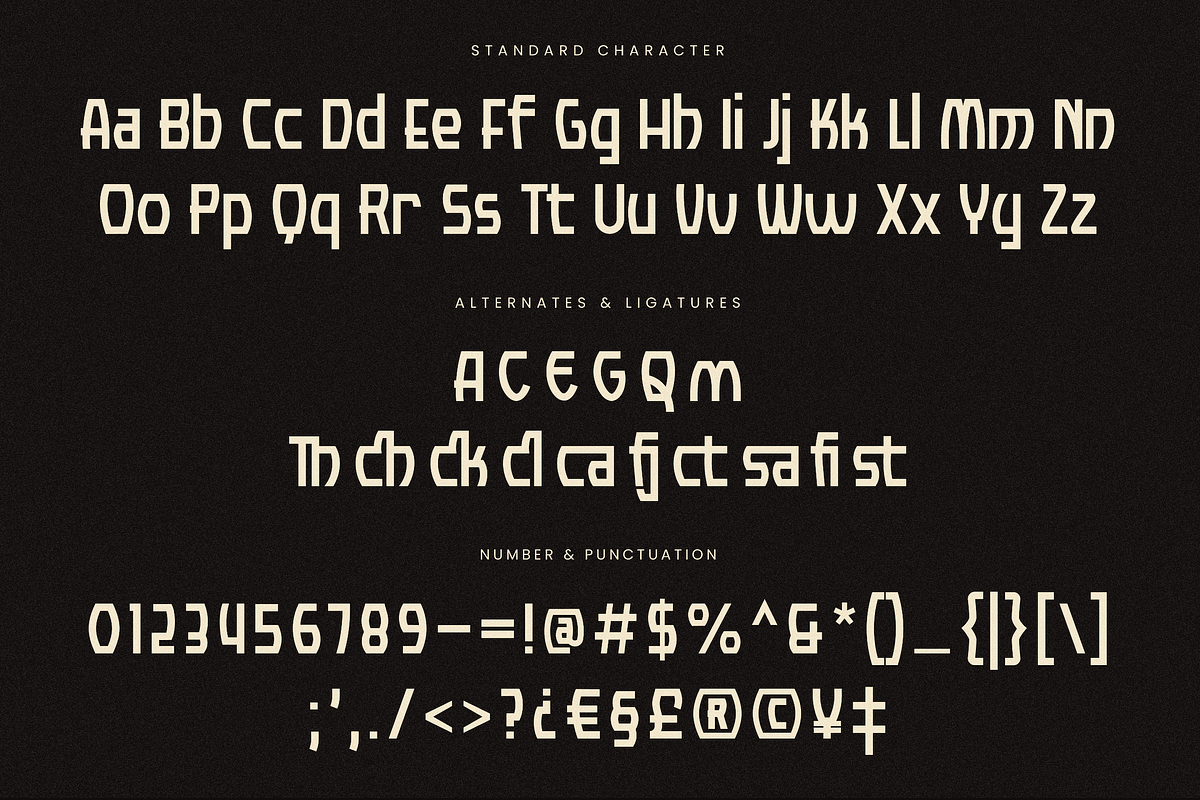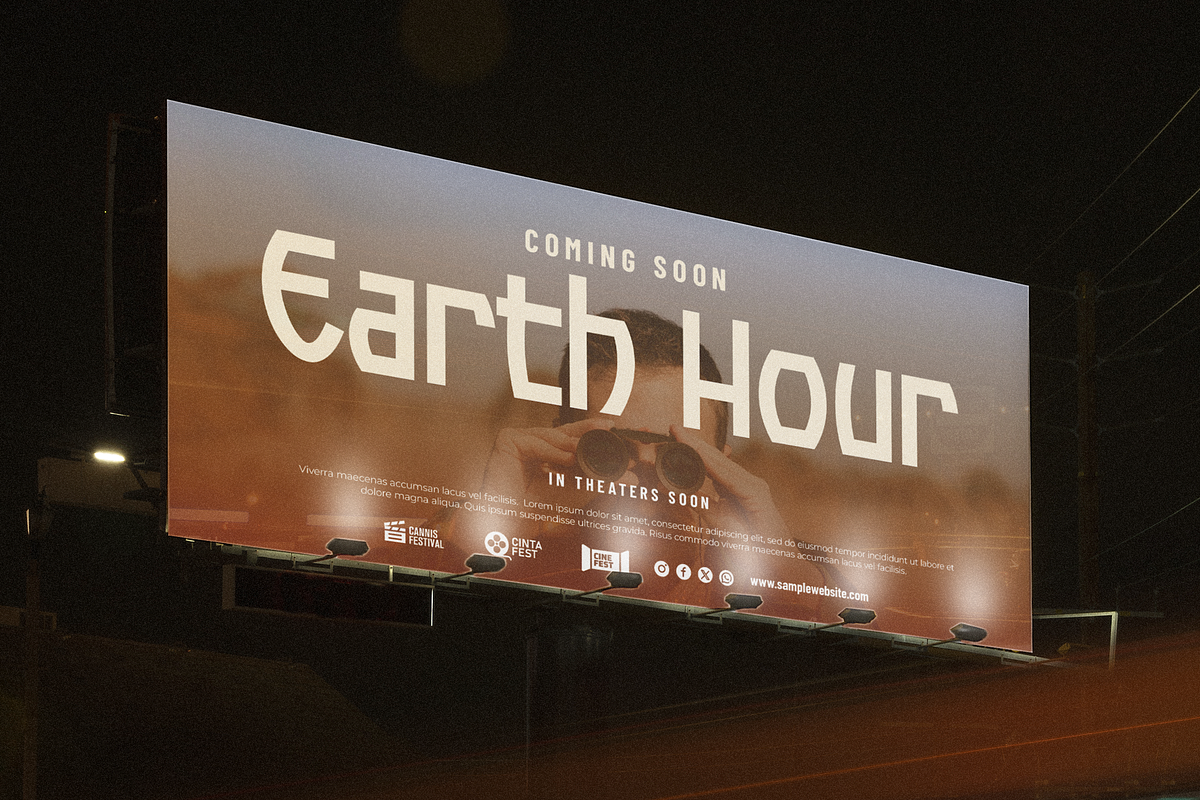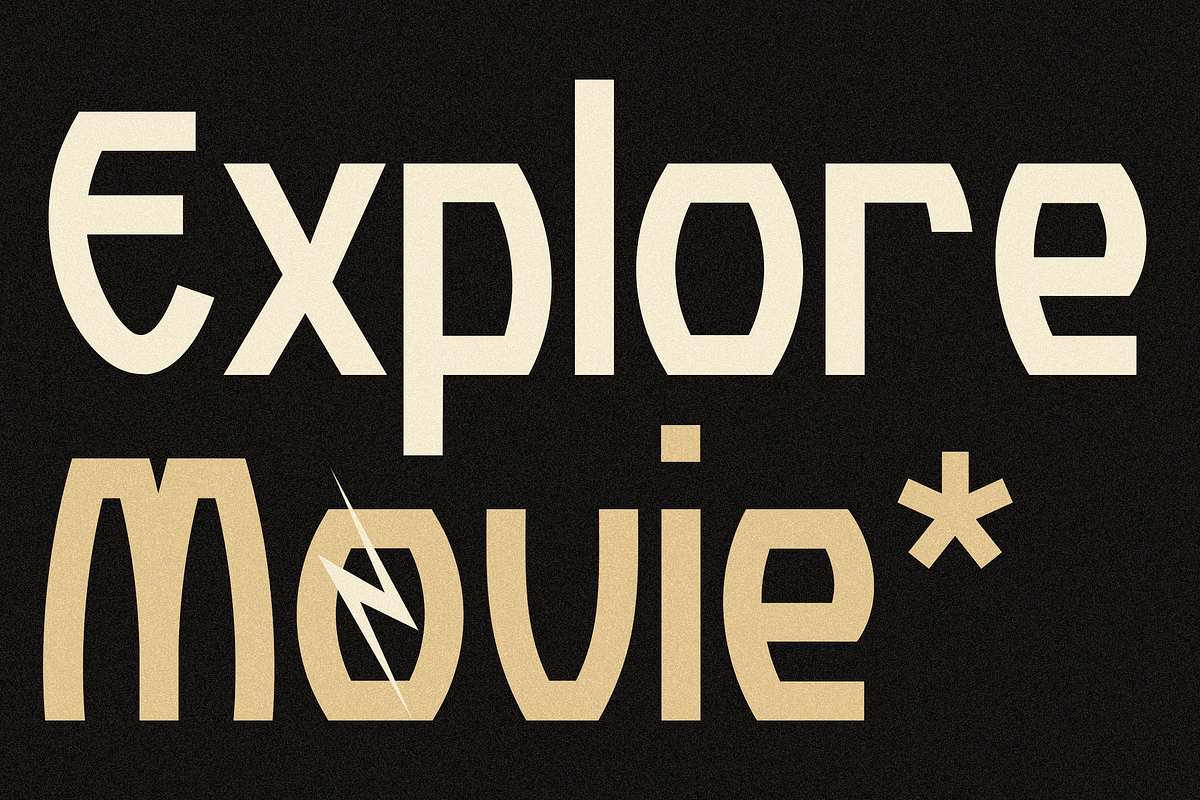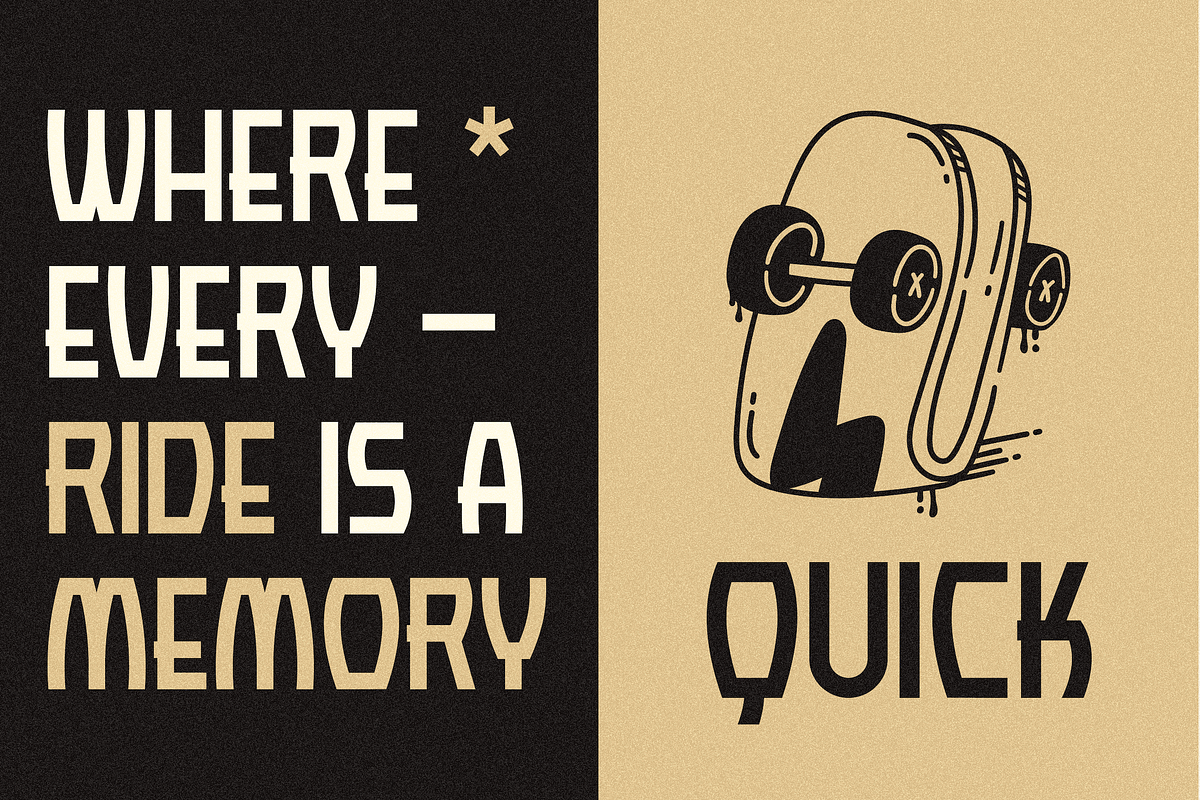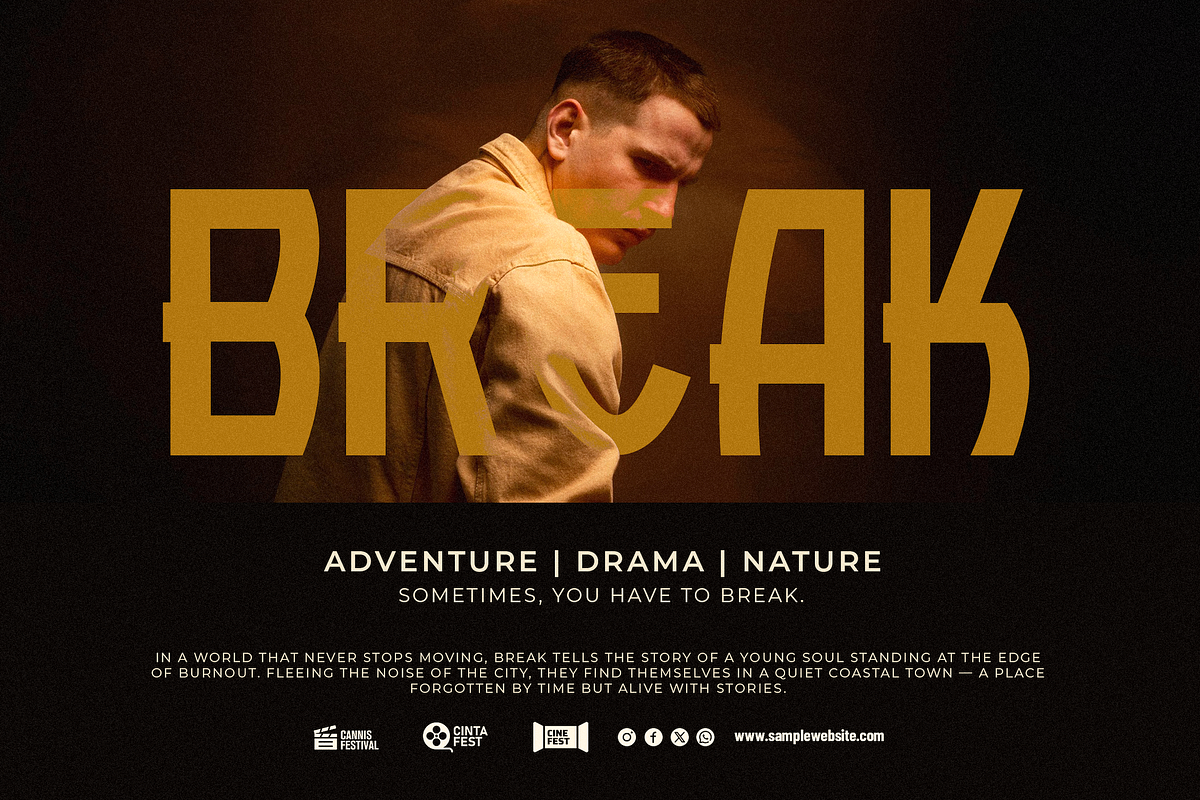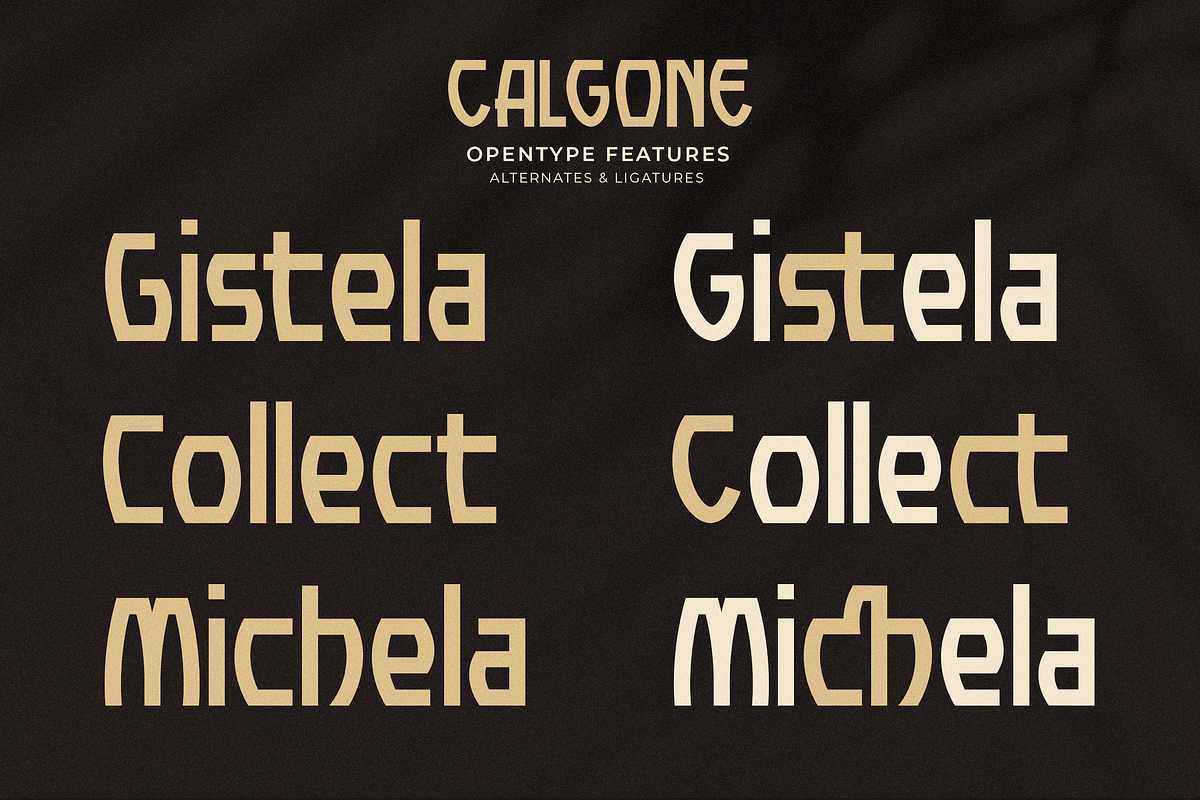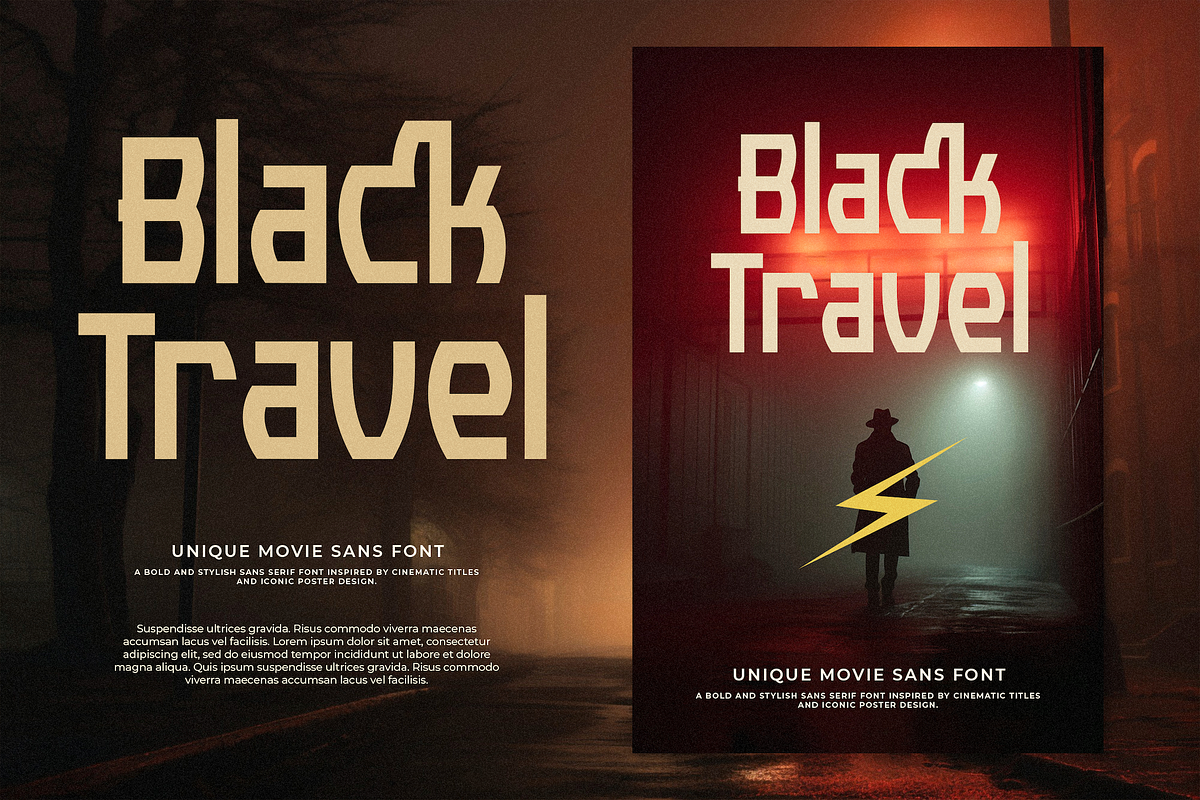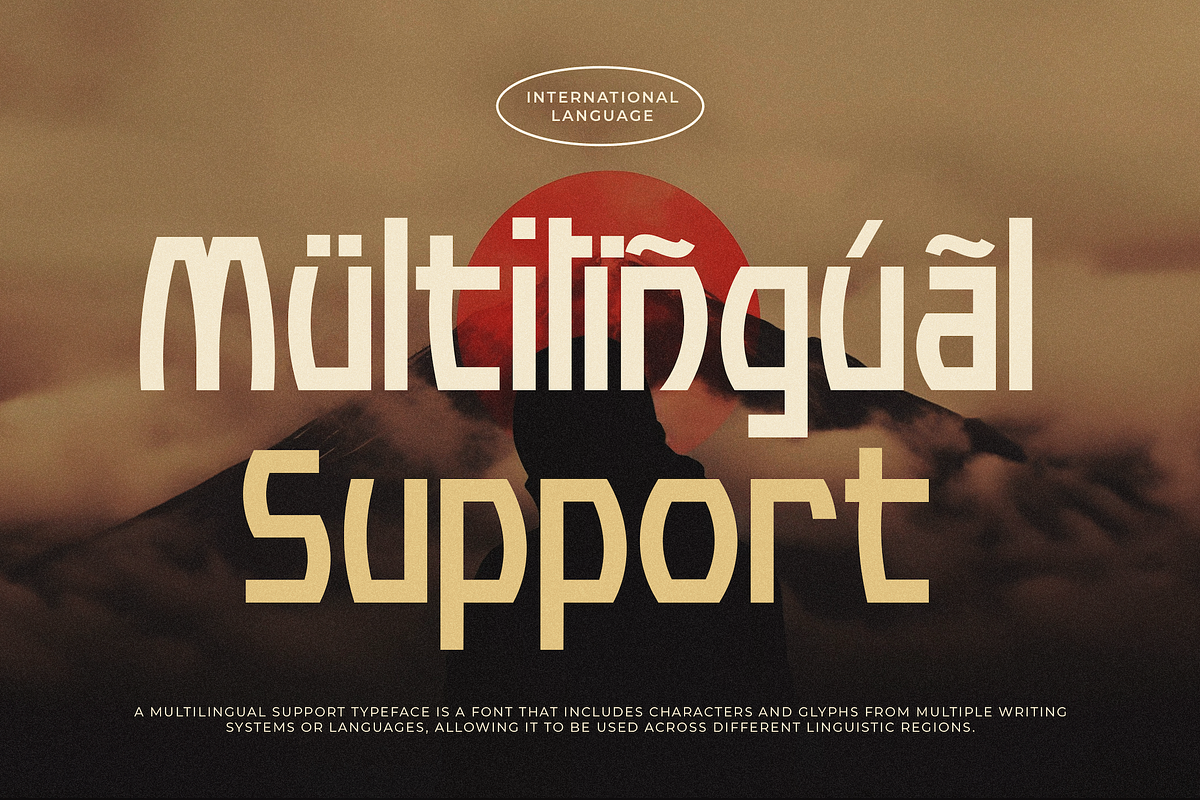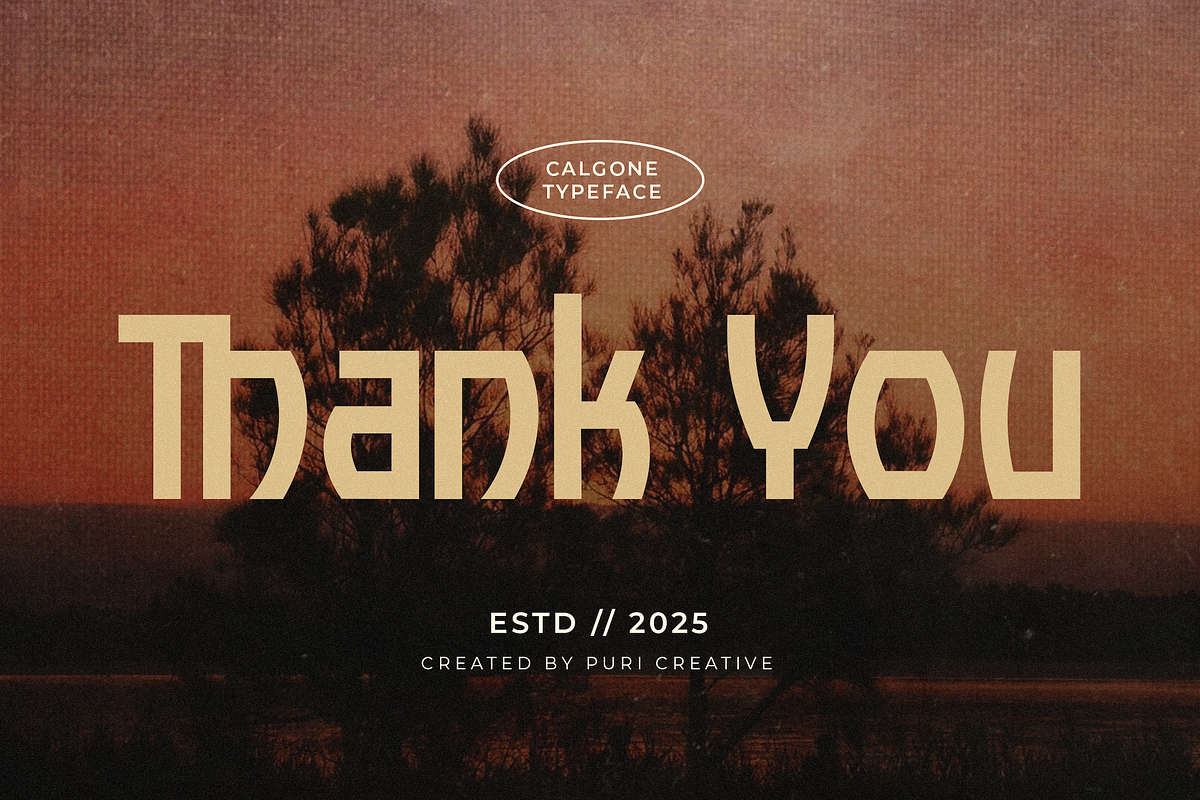
Calgone - Movie Sans Font
"Calgone" is a sleek and contemporary sans-serif typeface designed for versatility and clarity. With its clean lines and balanced proportions, Calgone font is perfect for branding, editorial design, packaging, and more.